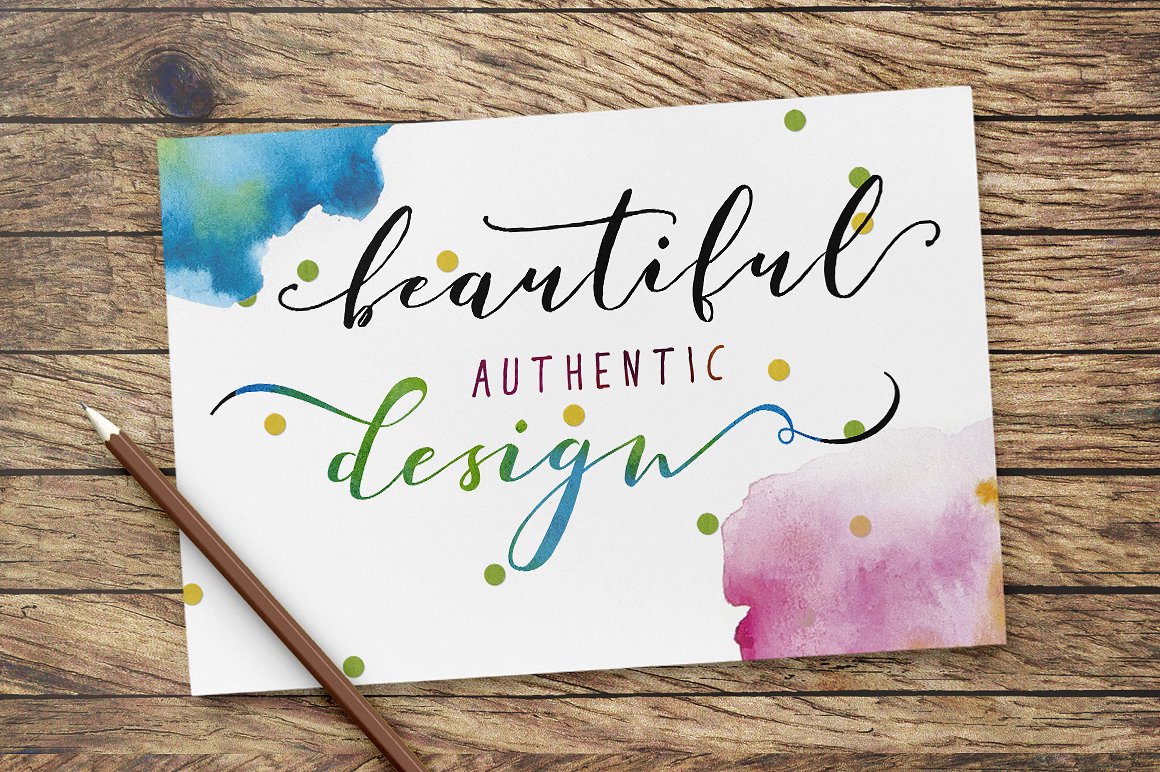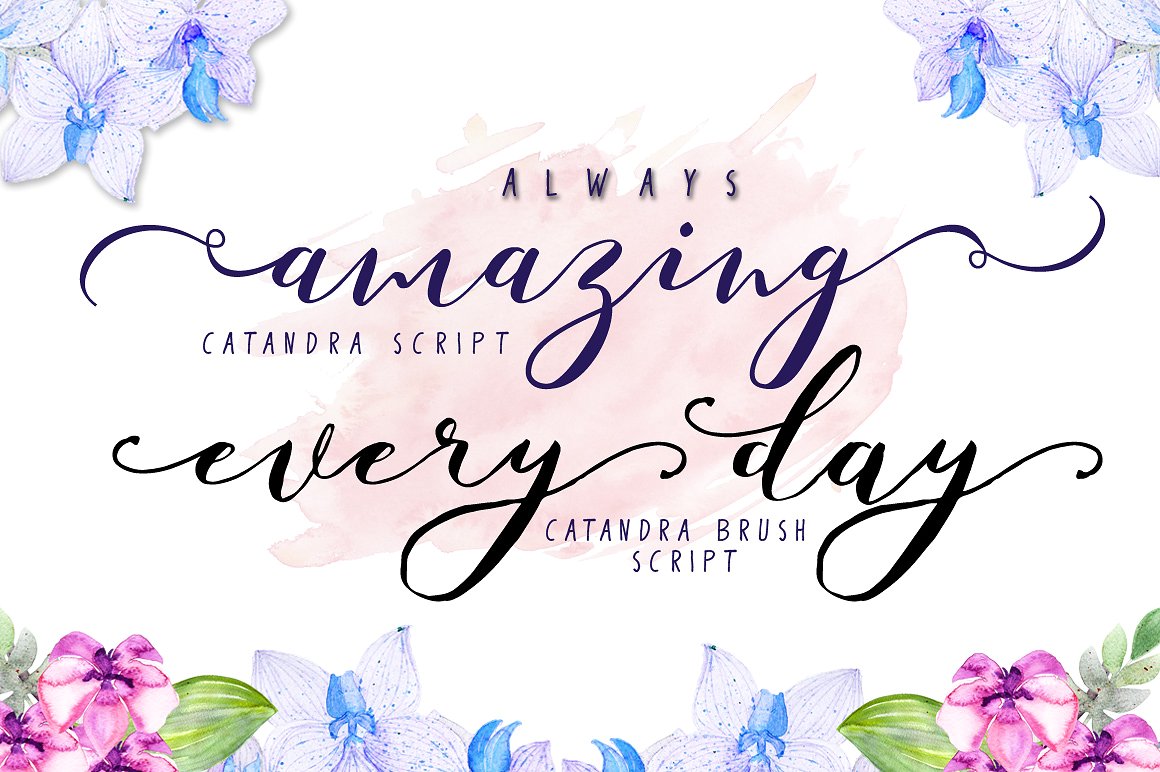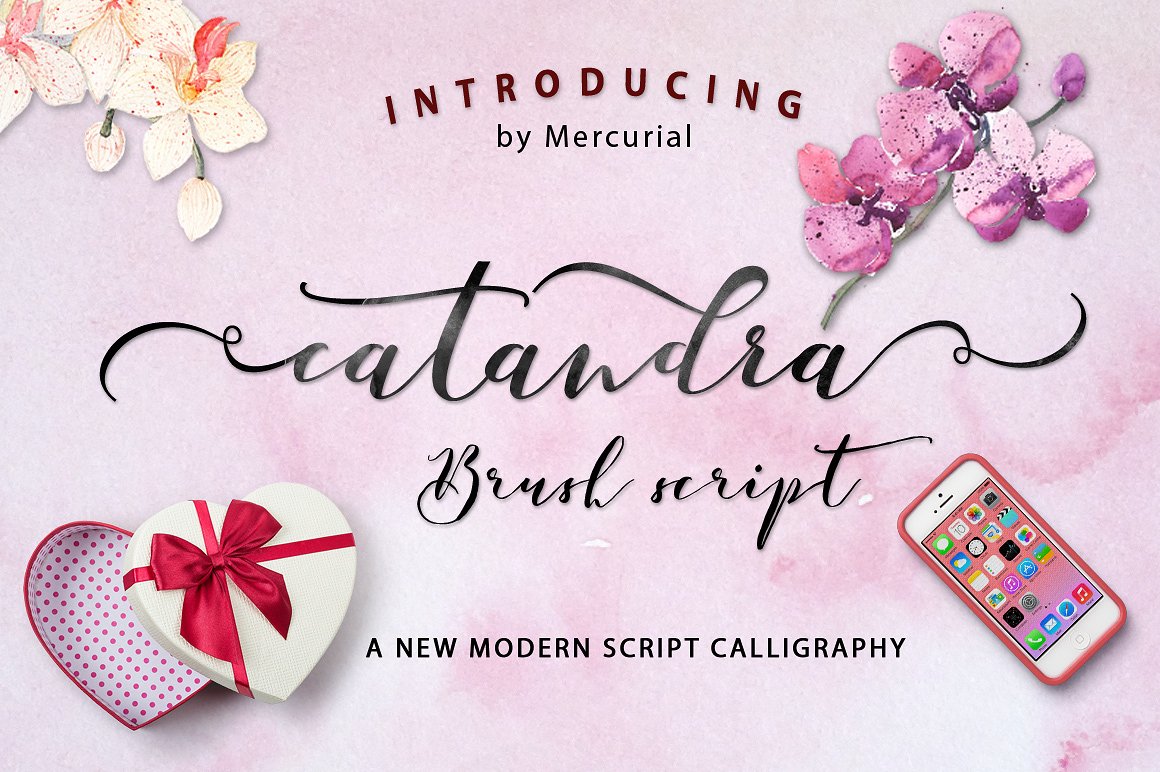
Catandra Brush Script Font
A new modern brush script typeface. This is a font that is very fresh and unique style handmade.  Introducing Catandra Brush Script Font.Catandra designed by MERCURIAL. A charming typeface that is attractive and So beautiful on invitation like greeting cards, branding materials, business cards, quotes, posters, and more! Catandra Script also has a swash letters from a – z that would make it a more attractive font. This font can be used in various applications such as Microsoft Word, corel draw, adobe illustrator, adobe photoshop. in addition to having standard letters, numbers and some standard symbols.